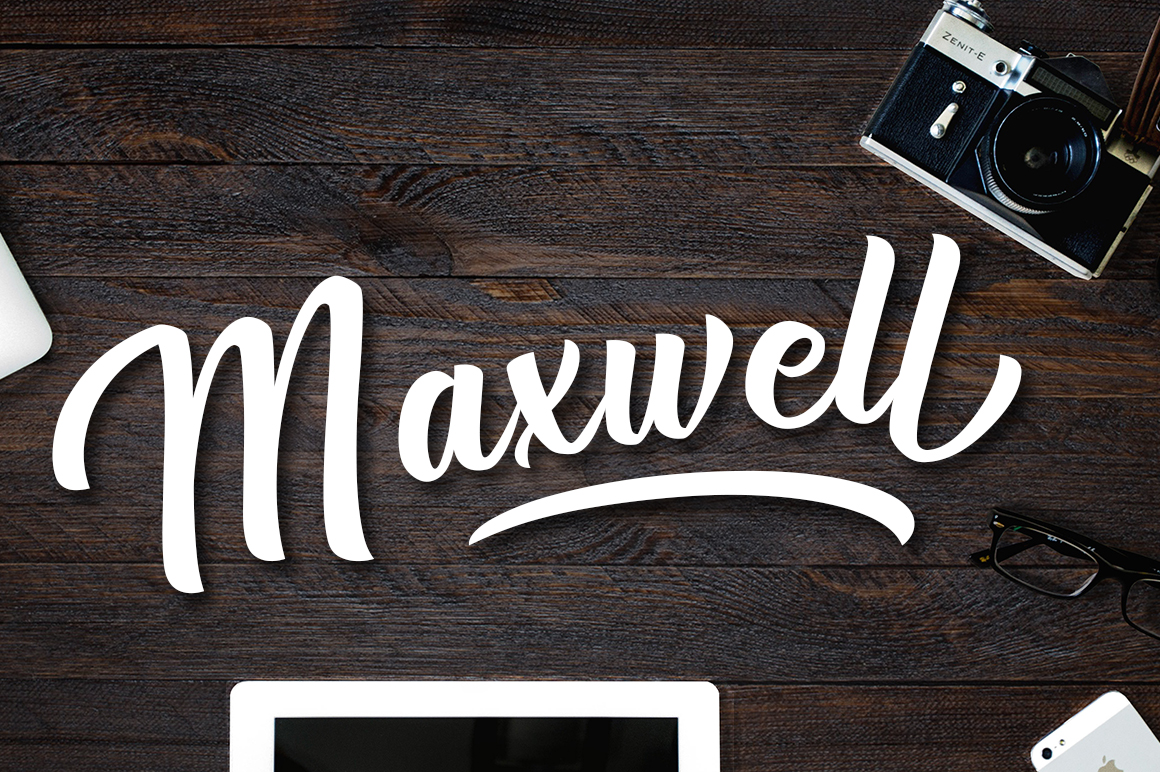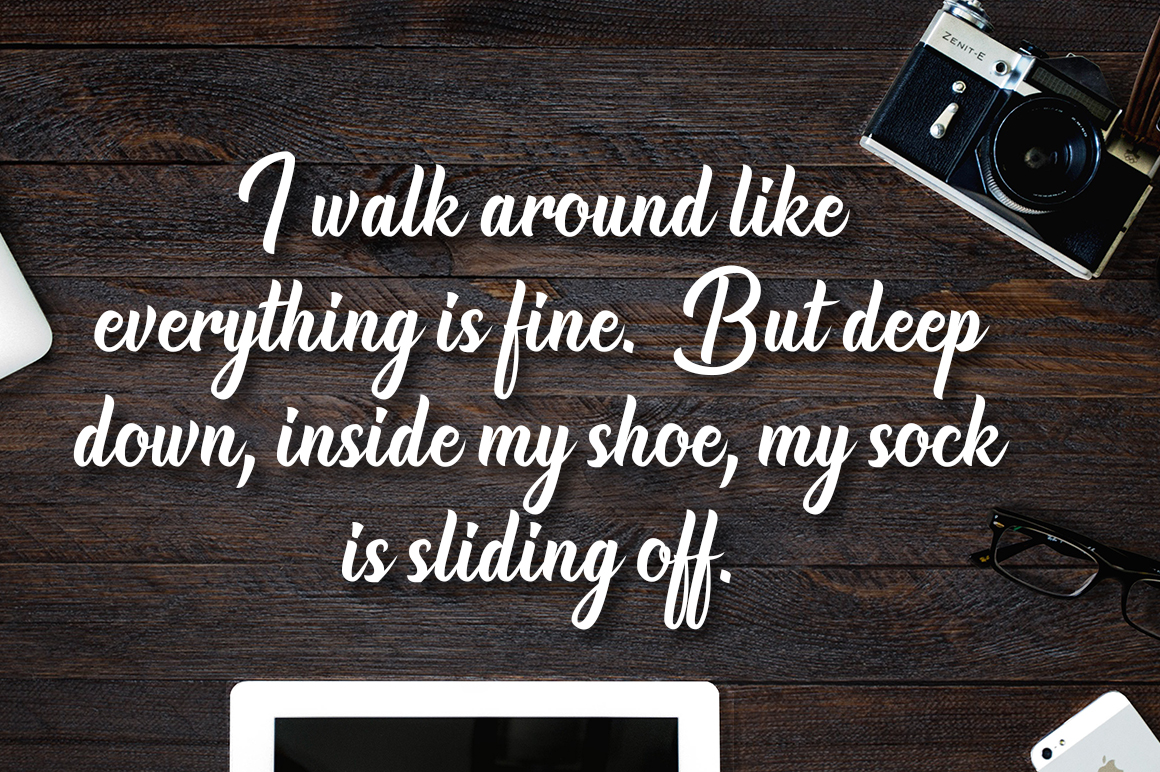
Maxwell Font
About Maxwell Font
Maxwell is a great script font with a painterly style, perfect for logotype and headlines.  This font is both modern and retro, and can look great in a wide range of designs.